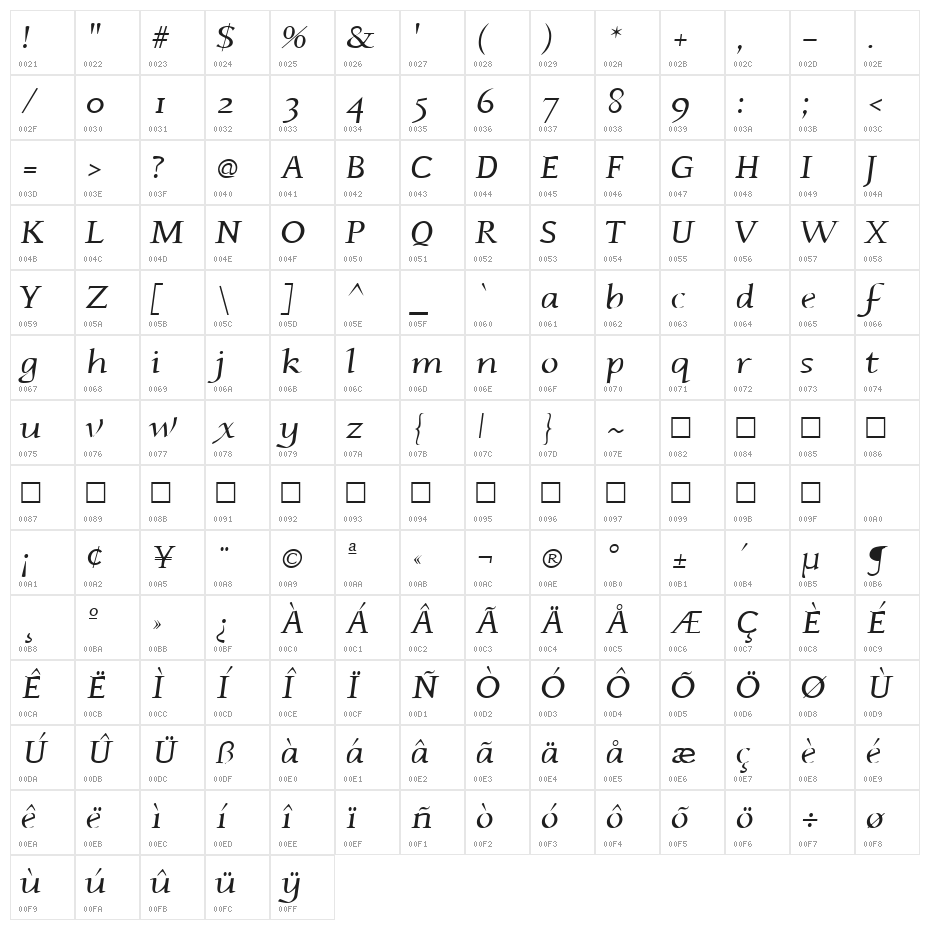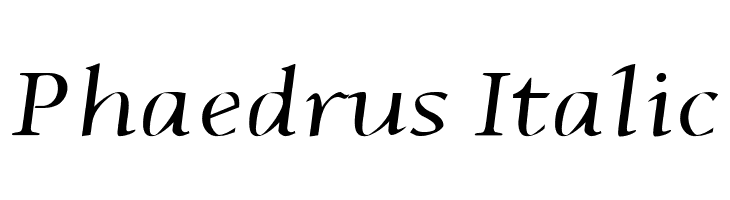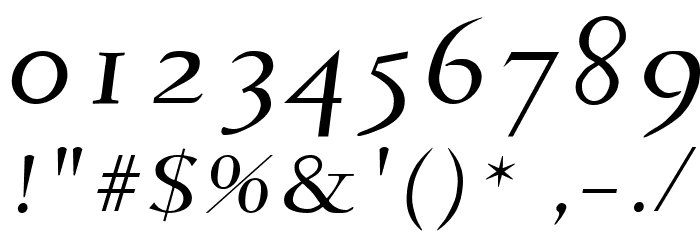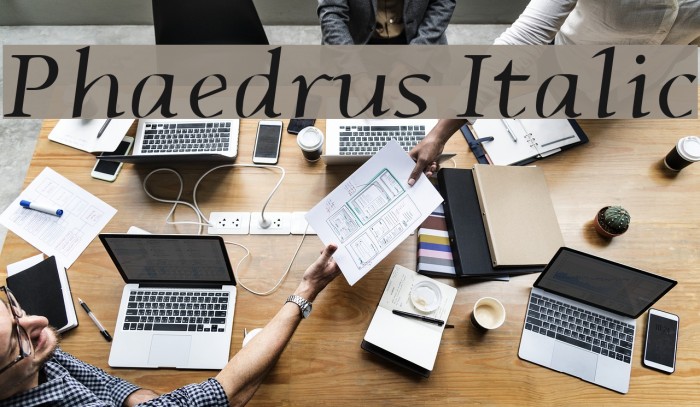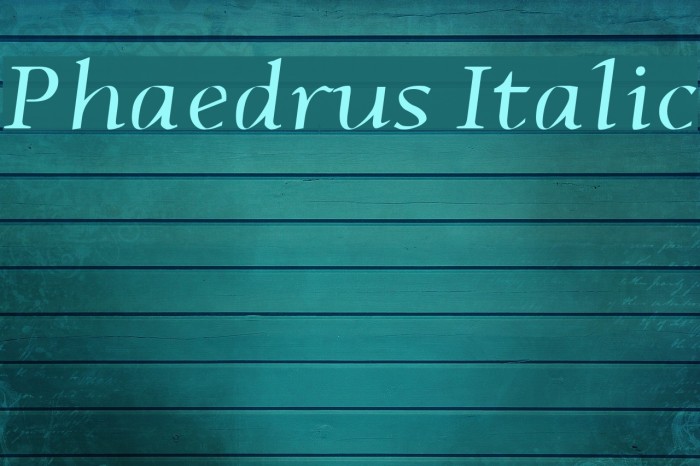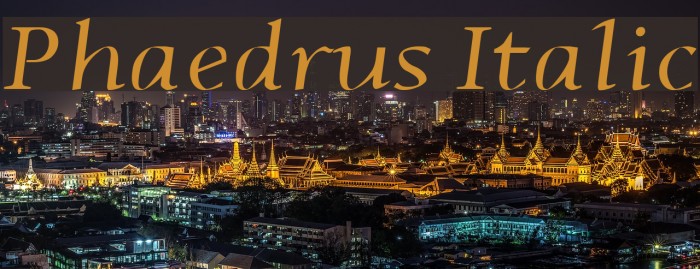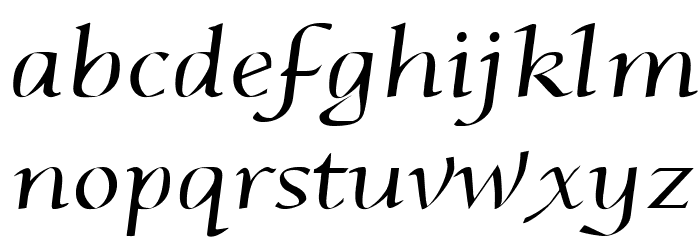
Phaedrus Italic Font
This elegant typeface features a classic italic style with a refined and sophisticated appearance. The letters are slightly slanted, giving a sense of motion and fluidity. The strokes are smooth and consistent, with a moderate contrast between thick and thin lines, enhancing readability while maintaining an artistic flair. The serifs are subtle yet distinct, adding a touch of traditional charm. The numerals and special characters are designed to complement the alphabet, maintaining the same graceful aesthetic. Overall, this typeface exudes a timeless elegance suitable for a variety of applications.
| Proposed Projects | Ideal for formal invitations, elegant branding, book covers, and editorial design. |